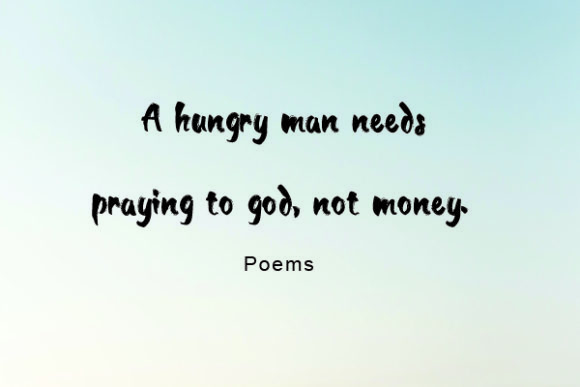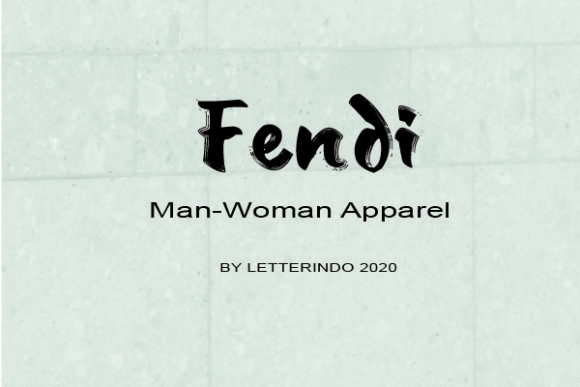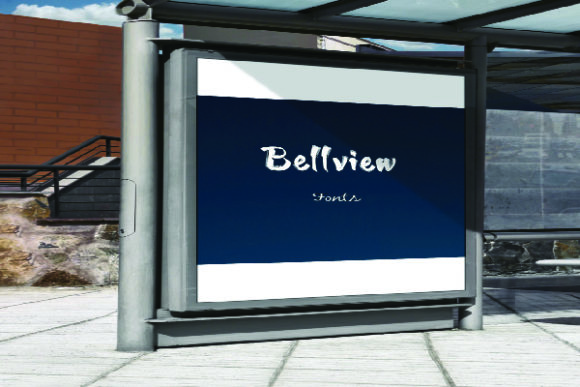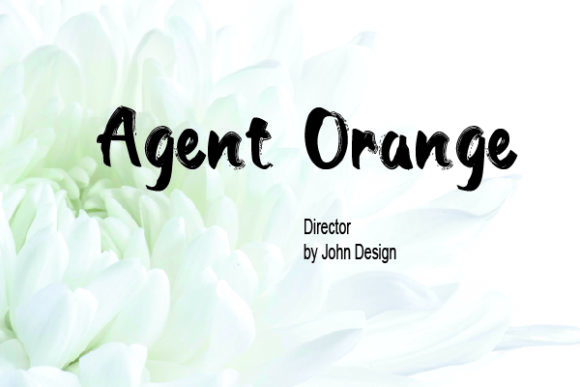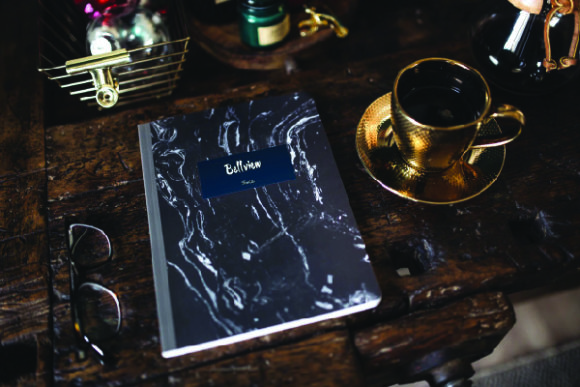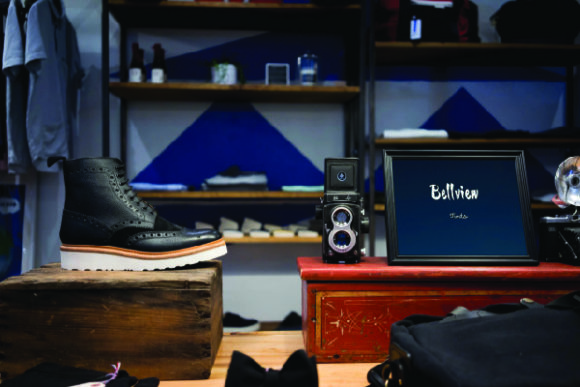
Bellview Font: The Ultimate Handwritten Font for Creative Projects
Bellview is a charming handwritten font that has captured the hearts of designers and crafters alike. Its unique and playful style makes it an ideal choice for a wide range of creative projects, from Instagram posts to DIY crafts. In this article, we’ll explore the features and benefits of the Bellview font and how it can elevate your designs to the next level.
What is Bellview Font?
Bellview is a carefully crafted handwritten font that exudes warmth and personality. Its distinctive style is perfect for adding a touch of whimsy and charm to any design project. Whether you’re a professional designer or a DIY enthusiast, Bellview is an excellent choice for creating visually appealing and engaging content.
Key Features of Bellview Font
- Cute and Playful Style: Bellview’s handwritten style is both adorable and engaging, making it perfect for designs that require a personal touch.
- Highly Versatile: This font is suitable for a wide range of projects, including Instagram posts, DIY crafts, and even commercial designs.
- Easily Readable: Despite its playful style, Bellview is remarkably legible, ensuring that your message is conveyed clearly and effectively.
Uses of Bellview Font
Bellview’s versatility makes it an excellent choice for various design projects. Here are some popular uses of this lovely font:
- Instagram and Social Media Graphics: Add a personal touch to your Instagram posts, stories, and other social media graphics with Bellview’s charming style.
- DIY Crafts and Projects: Use Bellview to create beautiful calligraphy scripts for DIY projects, such as handmade cards, gift tags, and more.
- Branding and Packaging: Bellview can add a touch of warmth and personality to your brand’s packaging and marketing materials.
- Wedding and Event Stationery: This font is perfect for creating beautiful wedding invitations, place cards, and other event stationery.
Tips for Using Bellview Font Effectively
To get the most out of Bellview, here are some tips to keep in mind:
- Pair with Complementary Fonts: Combine Bellview with other fonts to create a unique and visually appealing design.
- Experiment with Colors and Textures: Add depth and interest to your design by experimenting with different colors and textures.
- Use for Headlines and Titles: Bellview’s playful style makes it perfect for headlines and titles, adding a touch of personality to your design.
Bellview is a delightful handwritten font that can add a touch of magic to any design project. Its versatility, readability, and charming style make it an excellent choice for designers and crafters alike. Whether you’re looking for fonts for Instagram or calligraphy scripts for DIY projects, Bellview is sure to turn your creative ideas into true pieces of art.